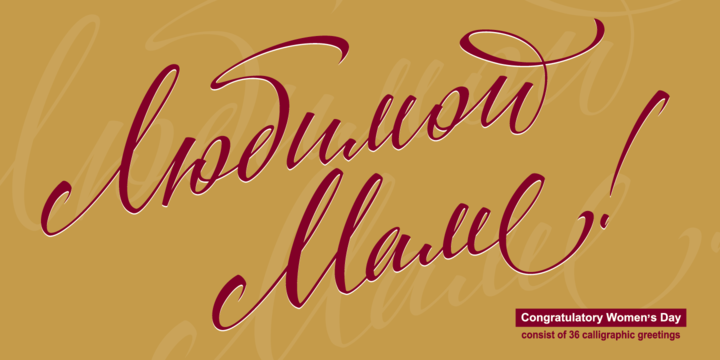
Congratulatory Womens Day
by Dmitriy Shchetinskiy
Congratulatory Womens Day font consist of 36 calligraphic greetings letterings. Letterings are original and handwritten. This font makes it possible to use high quality calligraphy in your projects - greeting cards, certificates, invitation cards, letters of commendation etc.